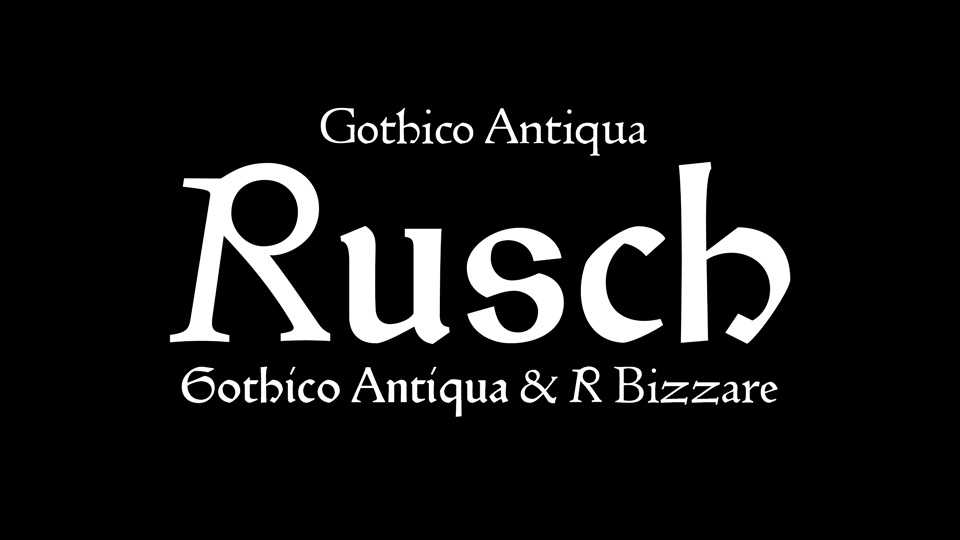
Download Rusch font R-Bizarre, Proto-Roman cut, R-Bizarre 100G, Gotico-Antiqua in Strasbourg by Adolf Rusch for Raban Maur’s De universo between 1467-74 (exact date unknown) and used until 1475. Type design workshop at ESAL Metz and Bibliothèque municipale de Metz, April 2018.